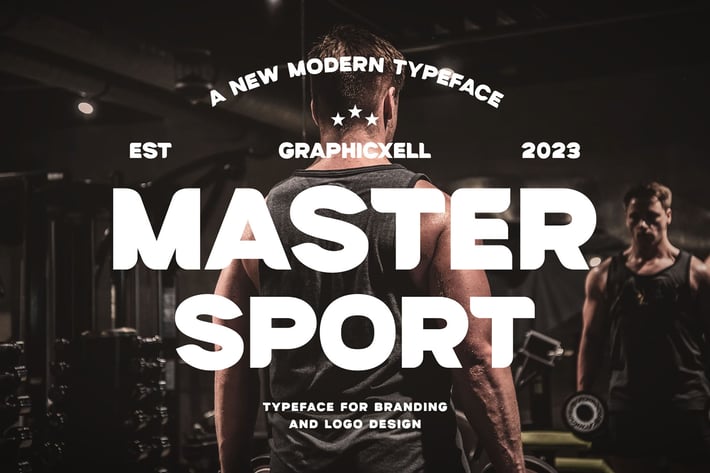
Master Sport Bold Sans Font Typeface
Master Sport Bold Sans Font – Strong, Modern, and Versatile Typeface
Master Sport Bold Sans is a bold, clean sans-serif font designed to create a strong and confident impact. It fits perfectly with sports branding, logos, headlines, and any project that requires clarity and a modern touch. Moreover, its sharp geometric shapes give it a sporty and dynamic feel, which makes it ideal for active and energetic designs.
Key Features
- Bold and thick letterforms for excellent visibility
- Clean and modern sans-serif style for professional looks
- Geometric shapes that add a sporty edge
- Highly readable on both print and digital formats
- Suitable for logos, headlines, packaging, and branding
- Works best with uppercase letters for maximum impact
- Perfect for sports teams, fitness brands, and athletic events
- Smooth curves combined with sharp edges create uniqueness
- Versatile enough for advertising, marketing, and creative projects
- Supports multilingual characters for international use
Why Choose Master Sport Bold Sans?
Furthermore, this font blends strength with simplicity, making it highly adaptable. In addition, it transitions effortlessly between different design needs while maintaining boldness and elegance. As a result, the clarity of each letter ensures your message is conveyed quickly and effectively. Therefore, it is an excellent choice for designers who want a font that stands out and communicates confidence.
Final Thoughts
In summary, Master Sport Bold Sans offers a modern, athletic vibe paired with strong and clean lines. Consequently, it is perfect for sports branding or any project that demands a bold, professional font. Also, it helps elevate your design and capture attention in competitive markets.
Master Sport Bold Sans is a bold, clean sans-serif font designed to create a strong and confident impact. It fits perfectly with sports branding, logos, headlines, and any project that requires clarity and a modern touch. Moreover, its sharp geometric shapes give it a sporty and dynamic feel, which makes it ideal for active and energetic designs.
Key Features
- Bold and thick letterforms for excellent visibility
- Clean and modern sans-serif style for professional looks
- Geometric shapes that add a sporty edge
- Highly readable on both print and digital formats
- Suitable for logos, headlines, packaging, and branding
- Works best with uppercase letters for maximum impact
- Perfect for sports teams, fitness brands, and athletic events
- Smooth curves combined with sharp edges create uniqueness
- Versatile enough for advertising, marketing, and creative projects
- Supports multilingual characters for international use
Why Choose Master Sport Bold Sans?
Furthermore, this font blends strength with simplicity, making it highly adaptable. In addition, it transitions effortlessly between different design needs while maintaining boldness and elegance. As a result, the clarity of each letter ensures your message is conveyed quickly and effectively. Therefore, it is an excellent choice for designers who want a font that stands out and communicates confidence.
Final Thoughts
In summary, Master Sport Bold Sans offers a modern, athletic vibe paired with strong and clean lines. Consequently, it is perfect for sports branding or any project that demands a bold, professional font. Also, it helps elevate your design and capture attention in competitive markets.